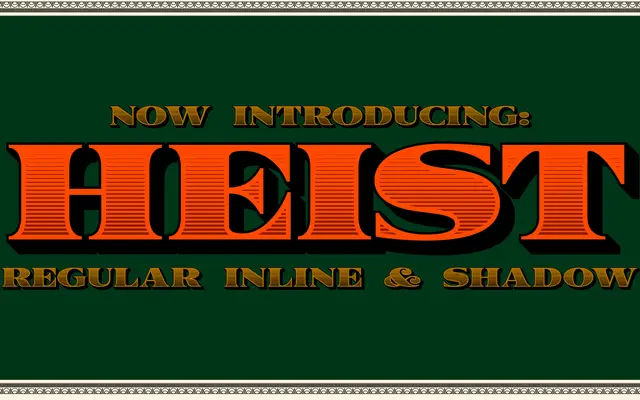
Heist
A modern reinterpretation of the 'Blackface Bank-Note Roman' tradition, drawing directly from Edward M. Weeks's engraved letterforms that appeared on American currency and postage stamps.
Jason Carne reworked Weeks's original engraved blackface roman, softening some triangular serifs and adding weight to the lighter strokes to reduce the most extreme contrast points of the source material. The family ships in three variants, Regular, Inline and Shadow, with over 400 glyphs covering punctuation, fractions, six currency symbols, catchwords and diacritical marks for 75+ Latin-based languages. Best suited to heavy headline, packaging and print work where the weight and historical register of American currency lettering is the point.
Heist is a display serif derived from the 'Blackface Bank-Note Roman' tradition, characterised by extreme stroke contrast, triangular serifs and heavy weight, historically used on American currency and postage stamps.